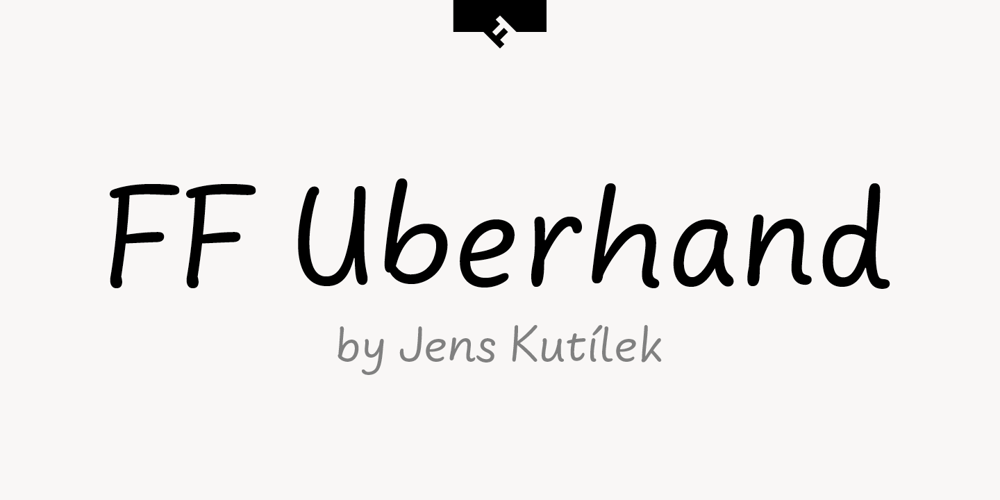
FF Uberhand Font Family was designed by Jens Kutilek and published by FontFont. FF Uberhand contains 14 styles and family package options. With 13 styles spread over text and display specific designs, the FF Uberhand™ family is one of largest and most versatile handwriting designs available. Working on the family – on and off – for eight years, Jens Kutilek was able to determine the best design traits for a cross-platform handwriting typeface. He used the time to test, rework and fine-tune the design – many times. The result is, according to him, “the casual handwriting font to end all other casual handwriting fonts.